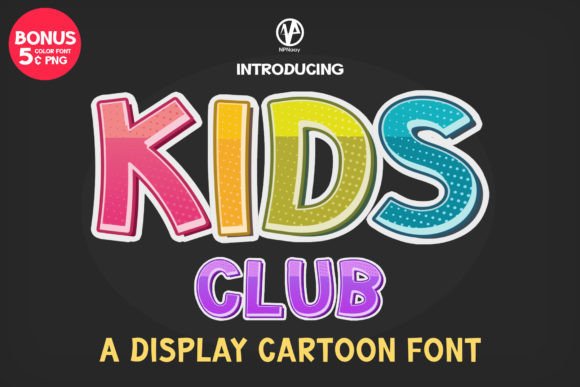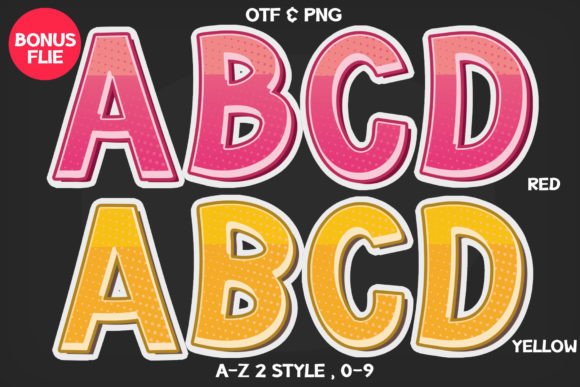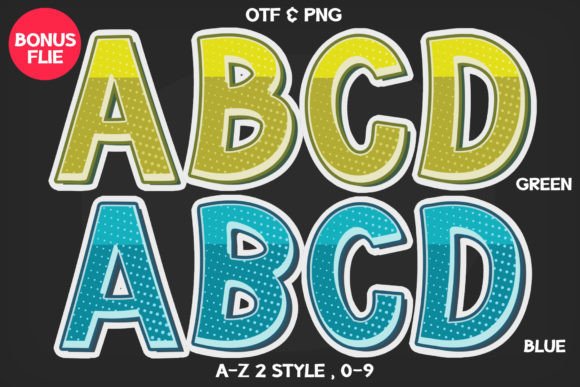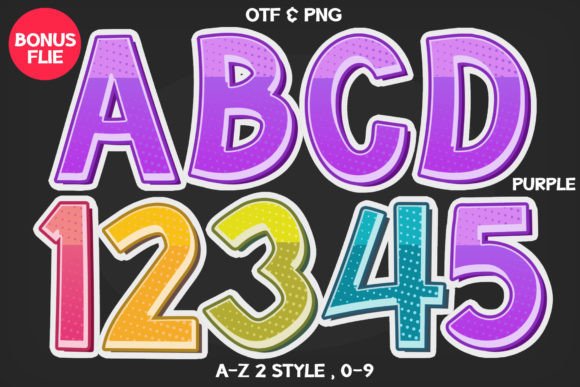
Kids Club Font: A Playful Display Font for Cartoon & Cricut Crafts!
About the Kids Club Font
Experience the unique personality of Kids Club Font, a font designed for impact. Kids Club is a fun, playful, and thick lettered display font. Whether you use it for cartoon-related designs, children’s games, or just any creation that requires a lovely touch, this font will be an amazing choice.
Kids Club excels in headlines, posters, and packaging for children’s products or brands targeting a young audience. Its playful nature also makes it suitable for playful branding initiatives or invitations to events for children. However, its thick letterforms and large x-height make it unsuitable for body text or UI elements where readability at smaller sizes is crucial.
Pairing Kids Club with a clean sans-serif like Open Sans for body copy provides a strong contrast and enhances readability. For a more whimsical feel, a playful script font such as Pacifico could be layered subtly underneath, but only in limited applications. Alternatively, a geometric sans-serif like Futura would create a modern, sophisticated counterpoint, ideal for logos or short tagline elements.
The font’s overall personality is undeniably cheerful and friendly, communicating approachability and fun. Its bold weight and playful forms instantly convey a sense of energy and excitement.